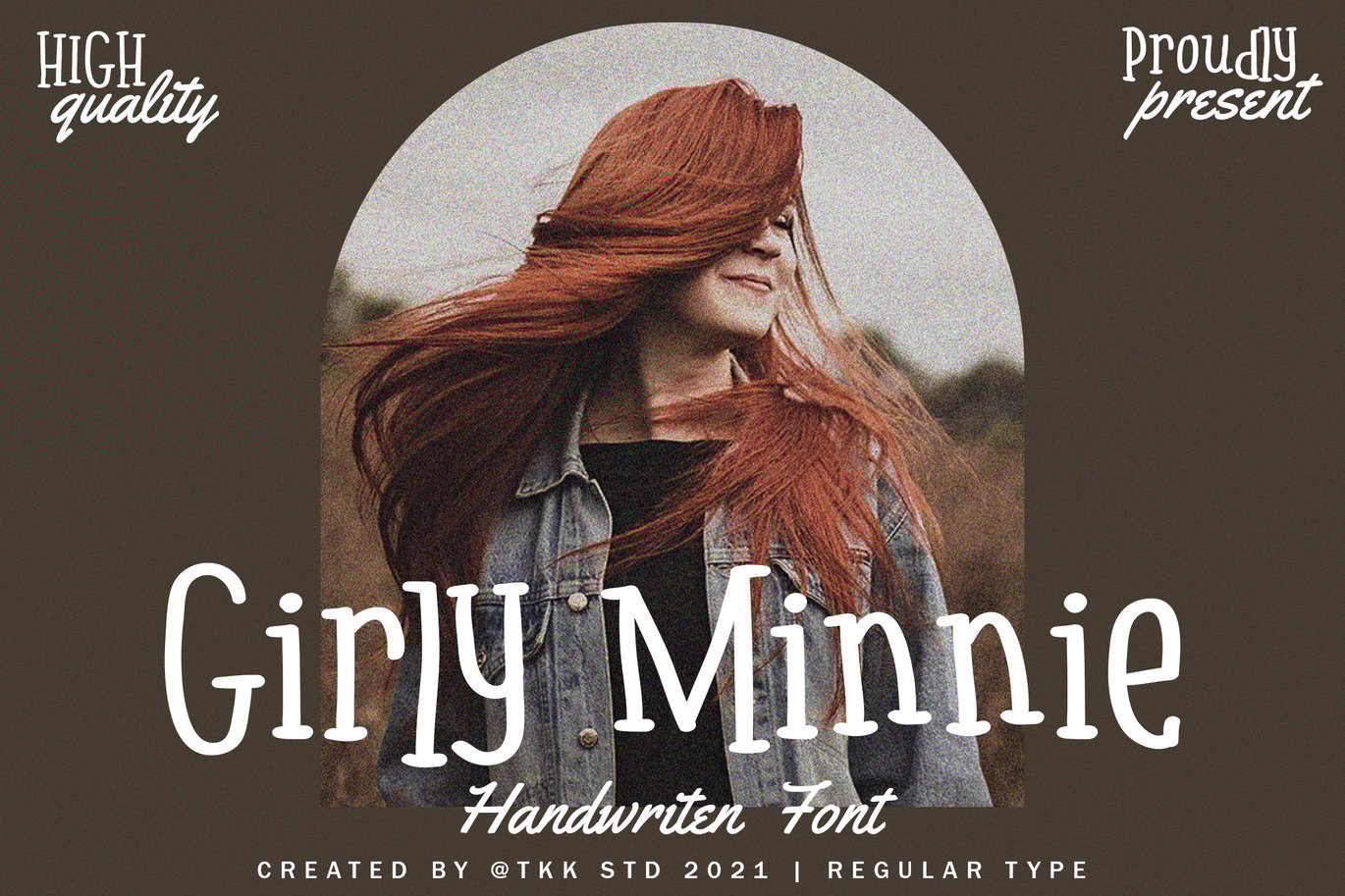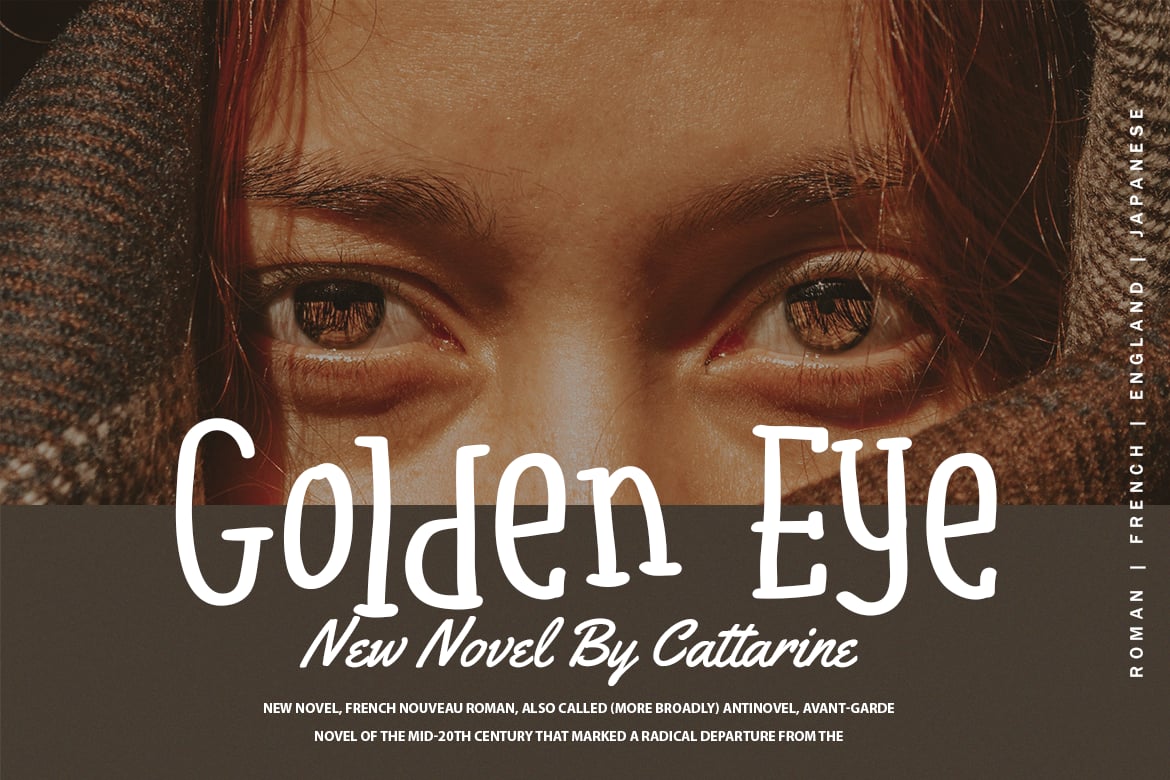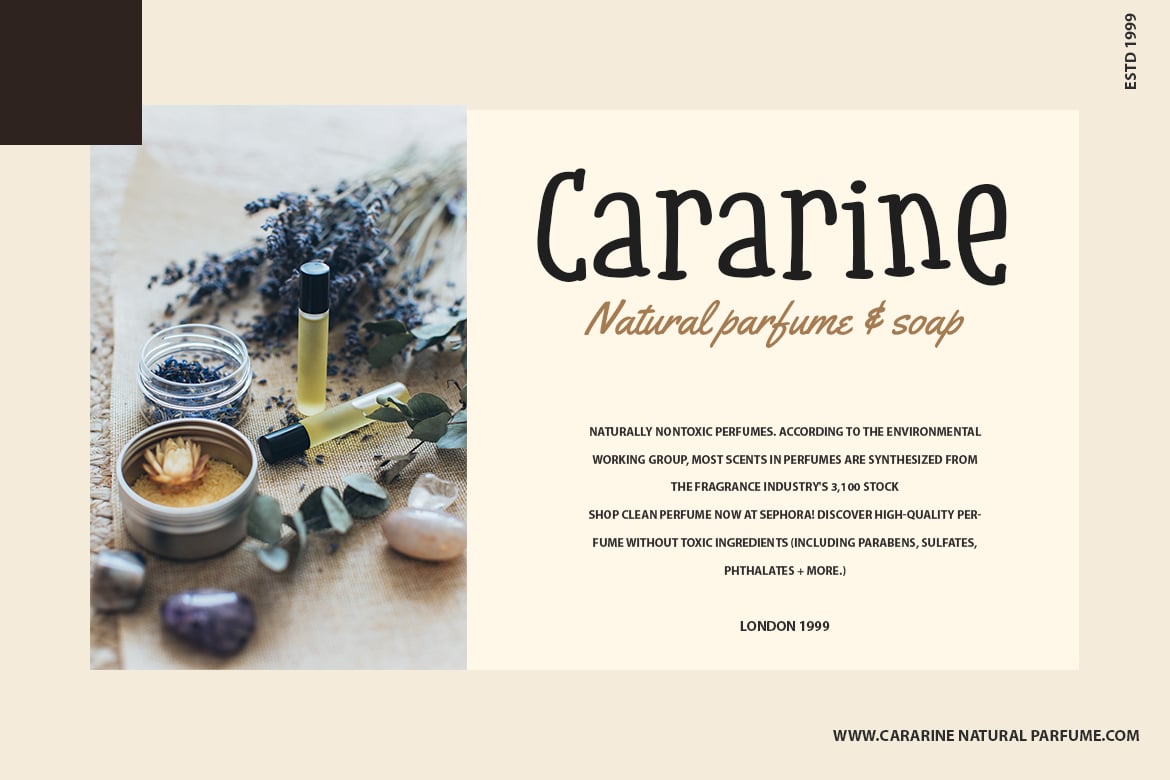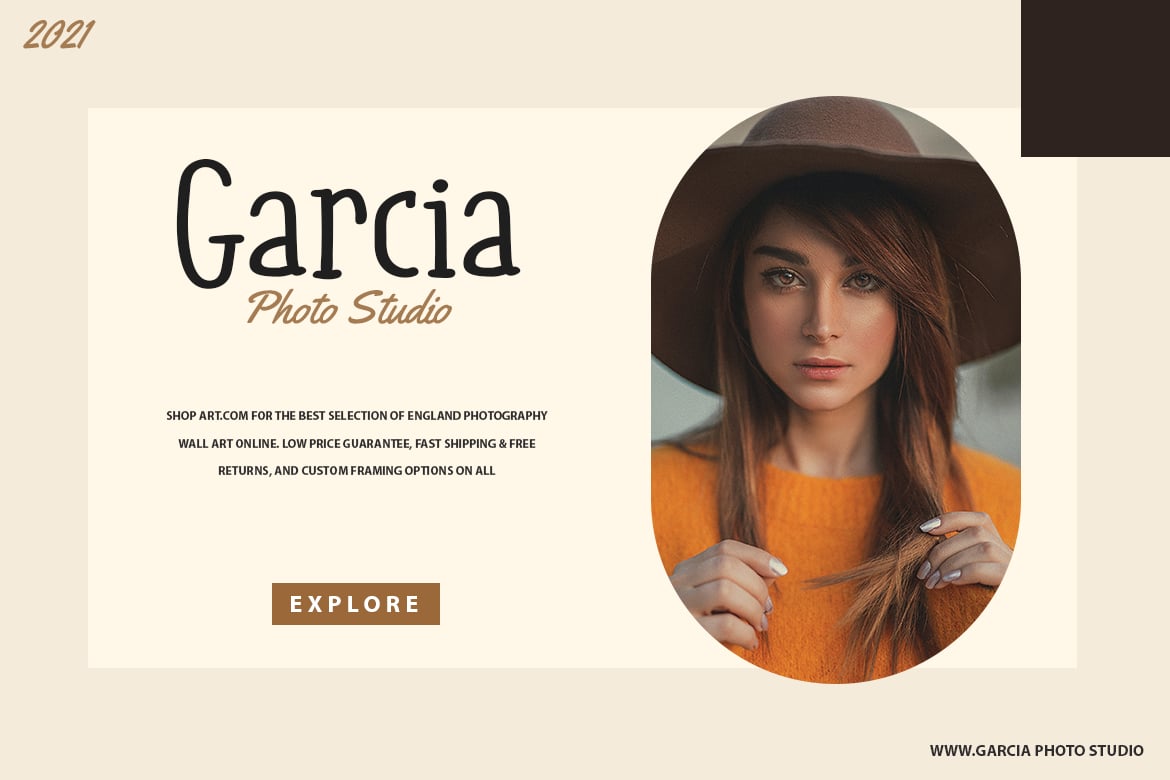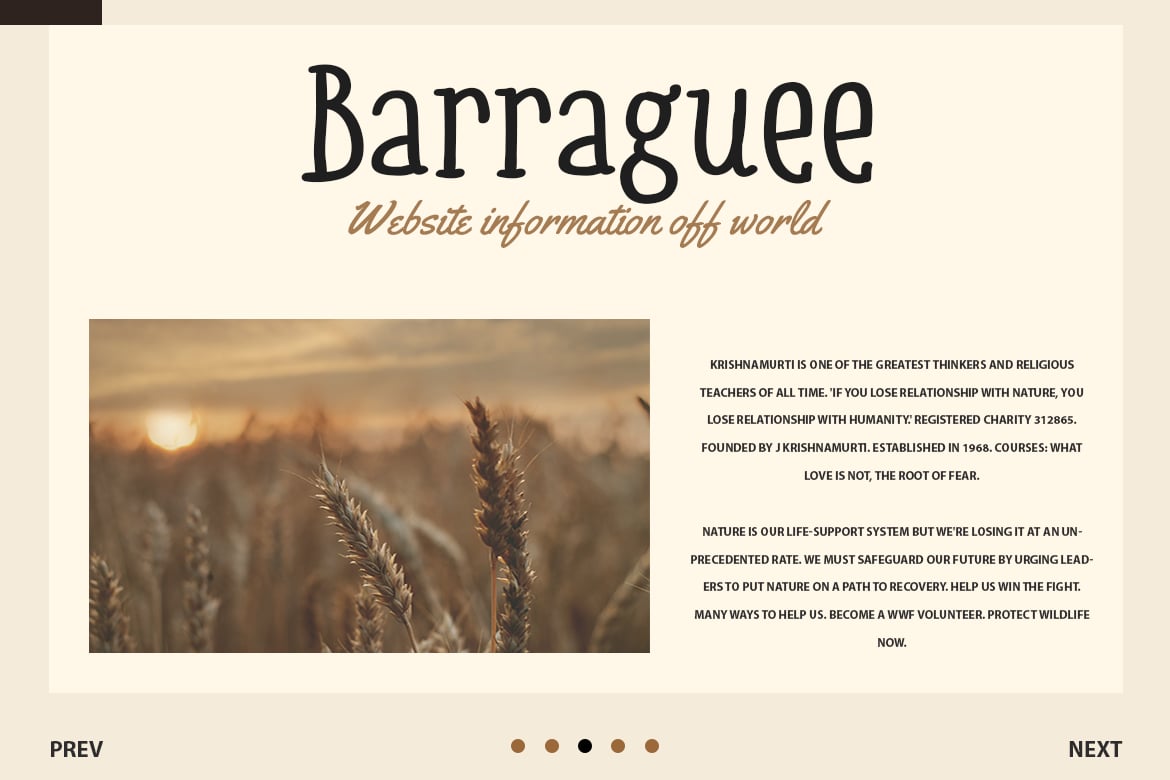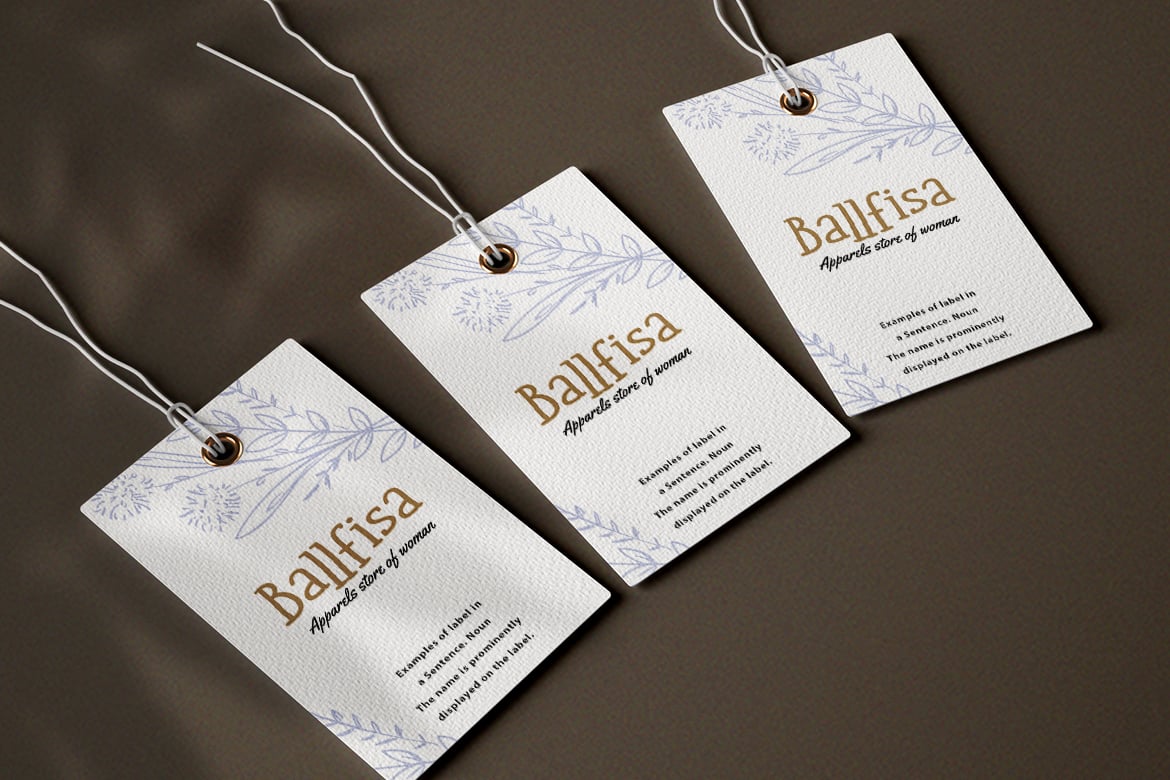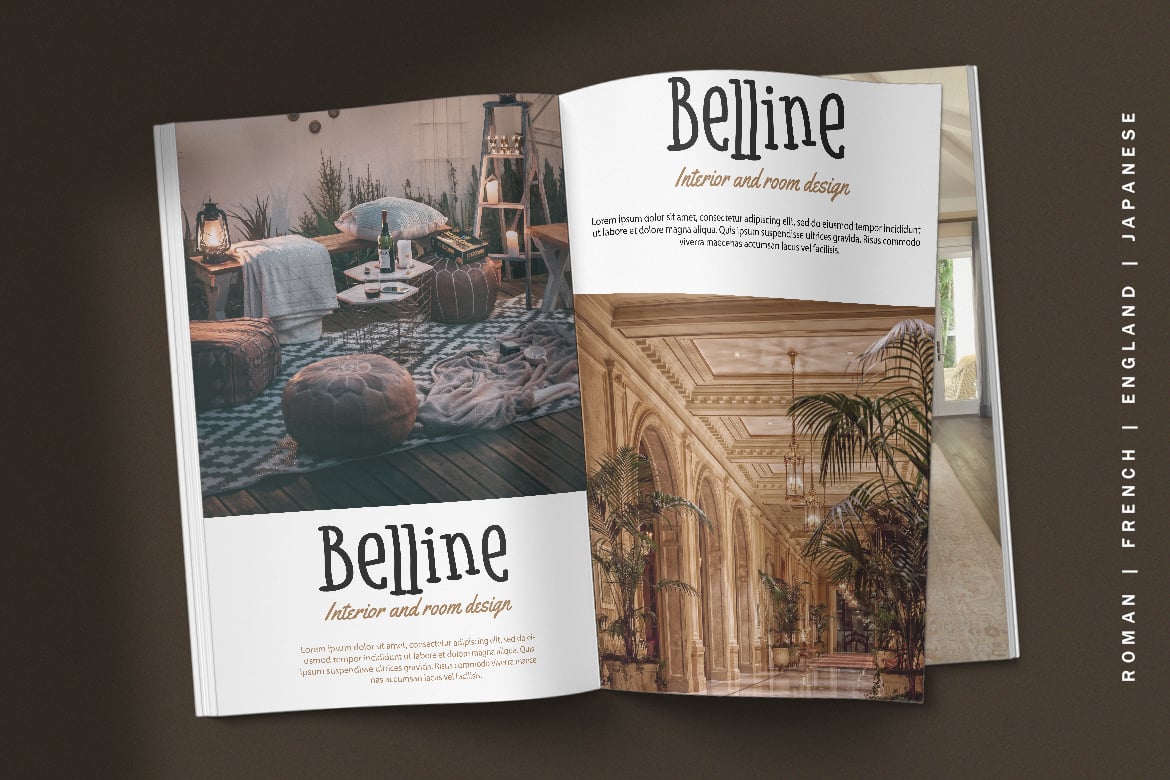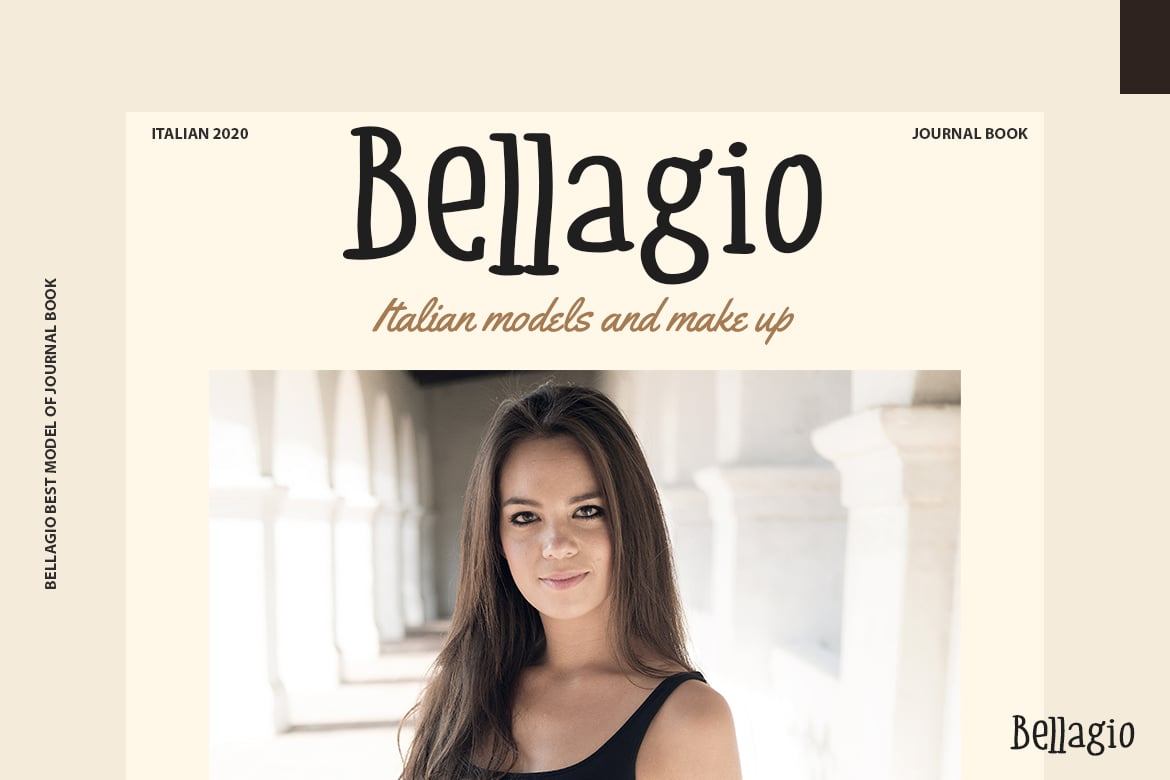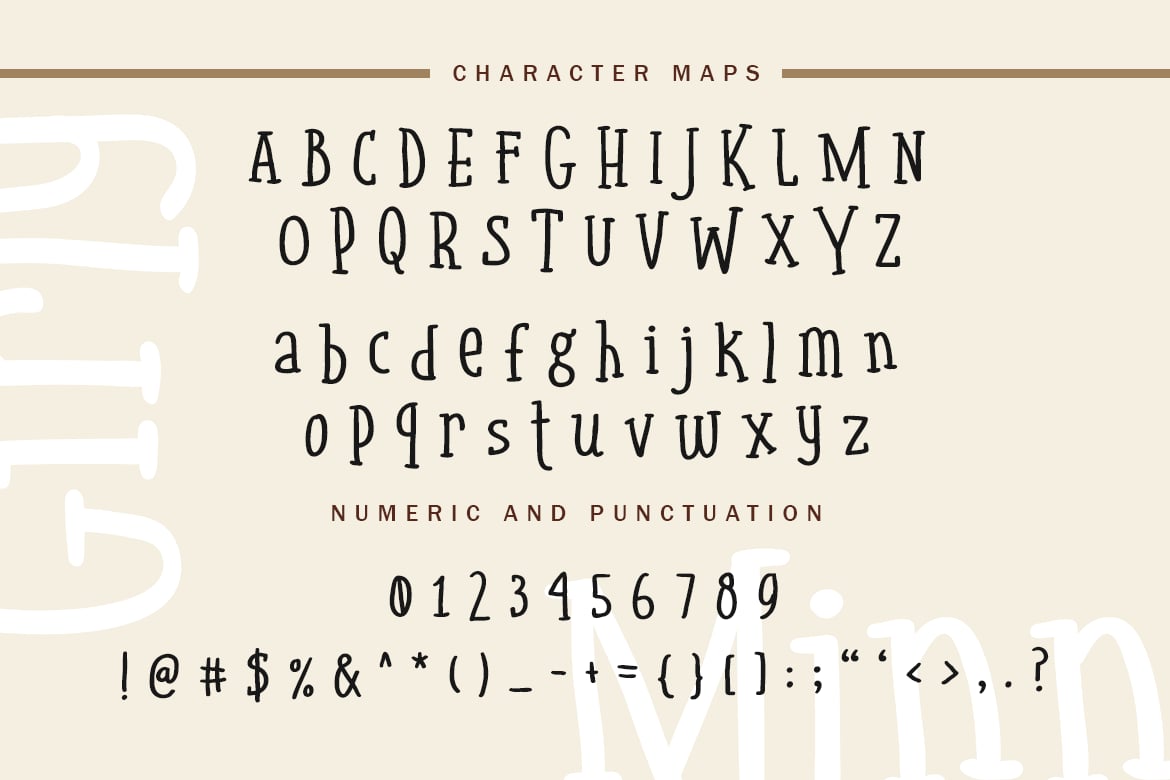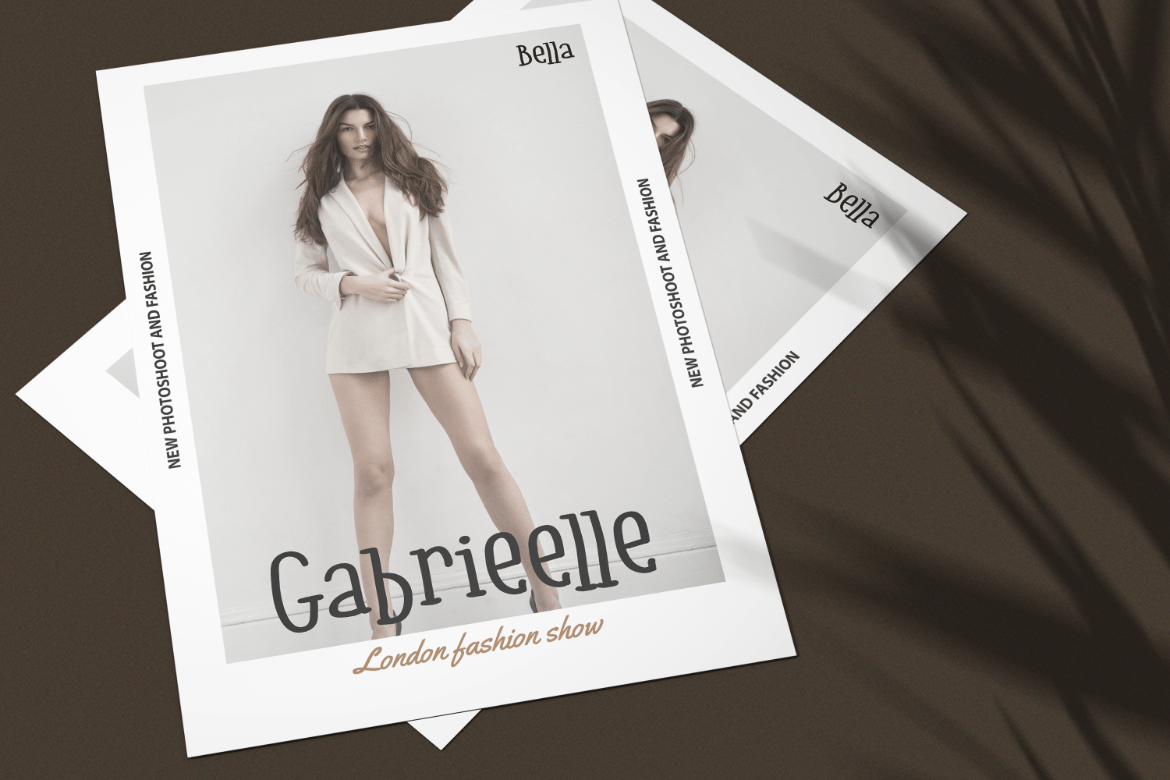
Girly Minnie – Girly Handwritten Font
Chic and attractive, and having an outgoing personalities. Girly Minnie will emphasize the cuteness and chic girly vibe that you want to have on your design.